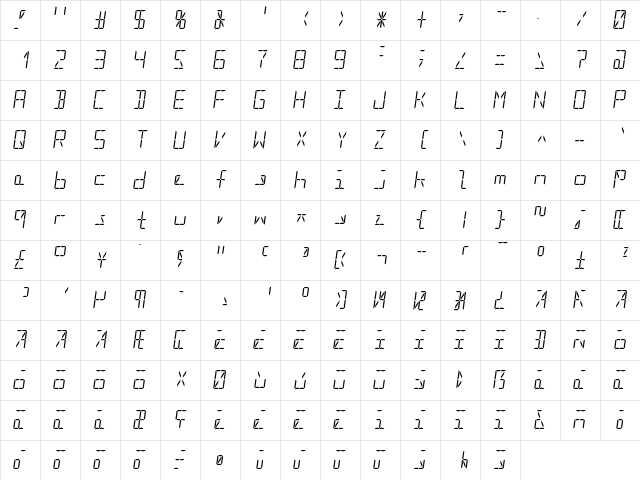
Segment16C Italic
| Designer | Daniel Wikholm |
Design Context for Segment16C Typeface
Segment16C takes a measured approach to typography — its balanced proportions and neutral character make it a reliable workhorse for both digital and print work. Its italic angle brings a sense of urgency and motion to the letterforms.